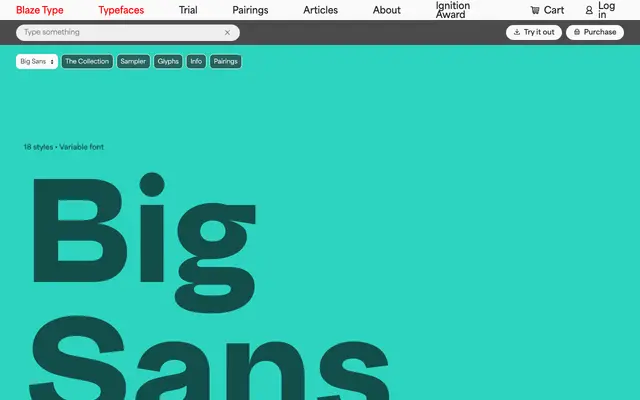
Big Sans
Blaze Type · Karol Mularczyk · 2025
Big Sans specimen from Blaze Type
A nine-weight grotesque by Karol Mularczyk that toggles between functional mid-century forms and warmer humanist proportions via a stylistic set.
Designed by Karol Mularczyk and released in 2025, Big Sans pairs grotesque precision with humanist rhythm across nine weights, each accompanied by a slanted style. Stylistic set 7 shifts the terminals from angled to vertically cut and loosens the proportions, effectively giving the family two distinct tonal registers within a single typeface. High-contrast internal cuts add a graphic sharpness that keeps the design current without abandoning its modernist footing.
Blaze Type describe it as blending grotesque precision with humanist warmth, rooted in mid-century modernism with geometric structural influences; the dual-voice design shifts between these registers via a stylistic set rather than separate subfamilies.